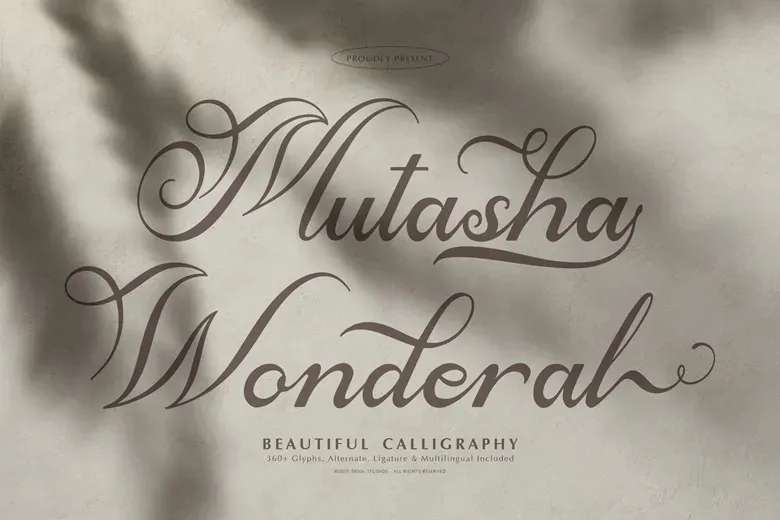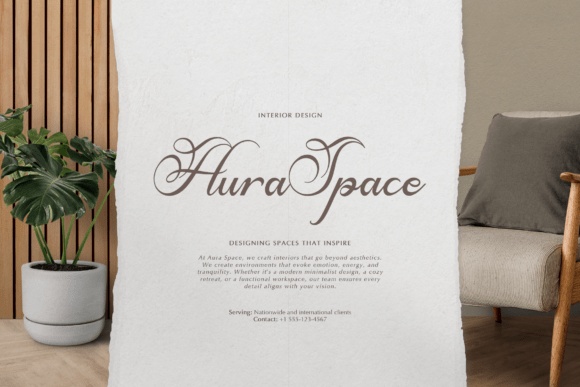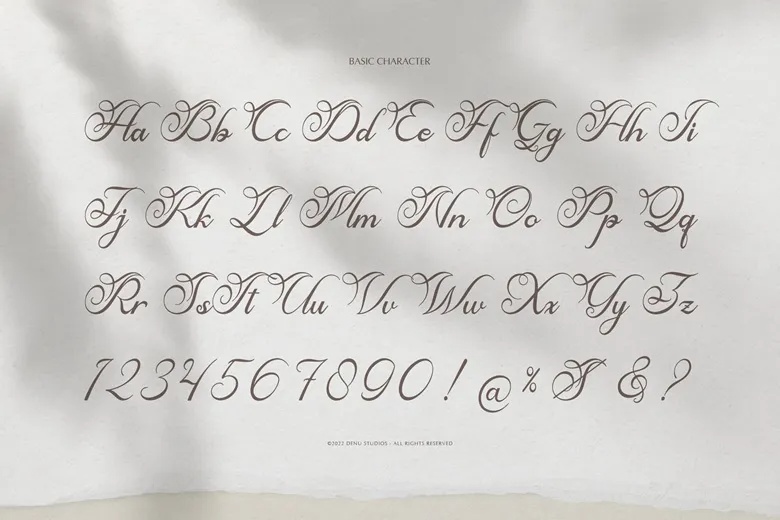
Mutasha Wonderal Font
Mutasha Wonderal is an elegant and modern calligraphy script font created by Denustudios. It is ideal for a wide range of projects, including logos, branding, homeware designs, product packaging, mugs, quotes, posters, shopping bags, t-shirts, book covers, name cards, invitation cards, greeting cards, labels, and special events. This versatile font adds a sophisticated and creative touch to all your lovely design projects.
Mutasha Wonderal Calligraphy Font